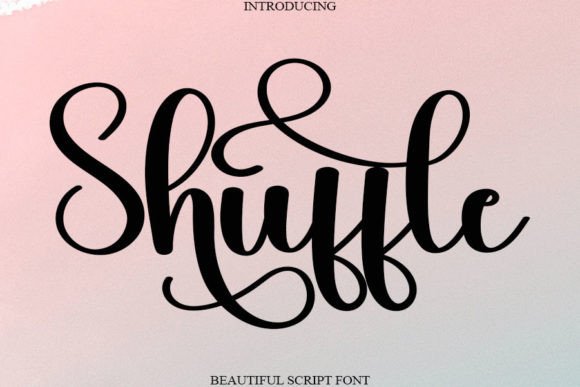
Journey into the mesmerizing world of Shuffle Font, a script font with an enchanting personality that will captivate your designs. Crafted by the talented Harlek studio, Shuffle is a handwritten font that dances along the baseline, adding a touch of elegance and playfulness to every project it graces.
Shuffle Font is the perfect choice for adding a personal touch to your creative projects. Whether you're designing logos, branding, invitations, or social media graphics, Shuffle will elevate your designs with its unique charm. Its graceful characters flow effortlessly, creating a sense of movement and energy that will capture the attention of your audience.
Immerse yourself in the boundless versatility of Shuffle Font. Its diverse range of characters, including uppercase, lowercase, numbers, and symbols, provides endless possibilities for creative expression. Experiment with different sizes, colors, and styles to create designs that resonate with your brand's identity.
With Shuffle Font, you'll discover a font that speaks to the heart. Its playful nature and elegant curves evoke a sense of joy and optimism, making it perfect for capturing special moments, heartfelt messages, and memorable occasions. Let Shuffle Font be your creative companion as you craft designs that leave a lasting impression.